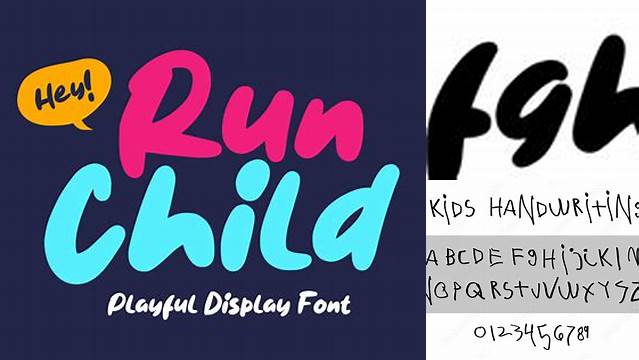
Run Child Font: Free Downloads & Playful Designs
Hey guys! Are you on the hunt for that perfect font to add a playful touch to your next project? Look no further! In this article, we're diving deep into the world of "Run Child" fonts, exploring what makes them so special and, most importantly, where you can snag them for free. Whether you're a seasoned designer or just starting out, finding the right font can make all the difference. So, let's jump right in and explore the exciting world of Run Child fonts and how they can elevate your creative endeavors. Choosing the right font is crucial for any design project, as it sets the tone and conveys the message effectively. A well-chosen font can enhance readability, evoke emotions, and create a lasting impression on the audience. Run Child fonts, with their unique and playful characteristics, are particularly suitable for projects that require a touch of whimsy and creativity. These fonts often feature rounded edges, handwritten styles, or quirky letterforms, making them ideal for children's books, educational materials, and other lighthearted designs. The versatility of Run Child fonts allows designers to explore various creative avenues, from designing logos and branding materials to creating engaging social media graphics and captivating website layouts. With their distinctive charm, Run Child fonts can add a personal touch to any project, making it stand out and capture the attention of the target audience. So, whether you're designing a birthday invitation, a children's book cover, or a website for a daycare center, Run Child fonts can be a valuable asset in your design toolkit. Run Child fonts are not just about aesthetics; they also play a crucial role in enhancing the user experience. By selecting fonts that are easy to read and visually appealing, designers can ensure that their message is effectively communicated. This is particularly important for projects targeted at children, where readability and engagement are paramount. Run Child fonts often come in various styles and weights, allowing designers to choose the most appropriate option for different applications. For example, a bold and playful font may be suitable for headlines and titles, while a more legible and understated font may be preferred for body text. By carefully considering the font's characteristics and its impact on the overall design, designers can create visually compelling and user-friendly projects that resonate with their audience.
What Makes Run Child Fonts Special?
Let's talk about what makes Run Child fonts so darn unique. These fonts often feature playful, whimsical designs that are perfect for projects targeting children or anyone looking for a lighthearted touch. Think rounded edges, cute serifs, and maybe even some fun, hand-drawn elements. It's this unique blend of creativity and readability that makes them a popular choice for a wide range of applications. The appeal of Run Child fonts lies in their ability to evoke a sense of joy and innocence, making them ideal for projects aimed at younger audiences. Whether you're designing a children's book, creating educational materials, or developing a website for a daycare center, these fonts can add a playful touch that resonates with children and parents alike. The versatility of Run Child fonts extends beyond their aesthetic appeal. Many of these fonts are designed with readability in mind, ensuring that the text remains clear and legible even at smaller sizes. This is particularly important for children's materials, where ease of reading is crucial for comprehension and engagement. Additionally, Run Child fonts often come in various styles and weights, allowing designers to create visual hierarchy and emphasize key information. This flexibility makes them suitable for a wide range of design applications, from headlines and titles to body text and captions. In addition to their playful designs and readability, Run Child fonts are also prized for their ability to convey personality and emotion. The unique letterforms and quirky details of these fonts can add a touch of character to any project, making it stand out from the crowd. Whether you're aiming for a whimsical, playful feel or a more gentle, nurturing tone, Run Child fonts can help you achieve your desired aesthetic. This makes them a valuable tool for designers looking to create memorable and impactful designs that connect with their audience on an emotional level. Furthermore, the hand-drawn and organic feel of many Run Child fonts can add a personal touch to your projects, making them feel more authentic and relatable. This is particularly important in today's digital world, where consumers are increasingly drawn to brands and designs that feel genuine and human. By incorporating Run Child fonts into your work, you can create a sense of warmth and connection that resonates with your audience and helps you build a stronger brand identity.
Key Characteristics of Run Child Fonts
To really understand what Run Child fonts bring to the table, let's break down their key characteristics. You'll often find these fonts sporting:
- Rounded Edges: Soft, curved lines that give a friendly, approachable vibe.
- Playful Serifs: Serifs are the little strokes at the end of letters, and in Run Child fonts, they're often quirky and fun.
- Hand-Drawn Elements: Some fonts mimic the look of handwriting, adding a personal touch.
- Whimsical Shapes: Expect unique letterforms that stray from the traditional, making them eye-catching.
These characteristics combine to create fonts that are not only visually appealing but also highly functional for projects aimed at children. The rounded edges, for instance, make the letters appear softer and less intimidating, which can be especially beneficial for young readers who are still learning to decode text. The playful serifs add a touch of whimsy and character, making the text more engaging and memorable. The hand-drawn elements give the fonts a personal and authentic feel, as if they were crafted by a real person rather than a machine. And the whimsical shapes add a unique visual flair that sets these fonts apart from more traditional typefaces. Furthermore, the combination of these characteristics makes Run Child fonts incredibly versatile. They can be used for a wide range of projects, from educational materials and children's books to birthday invitations and party decorations. Their playful and approachable nature makes them ideal for capturing the attention of children, while their readability ensures that the text remains clear and easy to understand. The adaptability of Run Child fonts extends beyond their target audience. They can also be used effectively in branding materials for businesses that cater to families or children, such as daycare centers, toy stores, and family-friendly restaurants. By incorporating these fonts into their logo, website, and marketing materials, businesses can create a visual identity that is both playful and professional. This can help them attract their target customers and build trust and recognition within their community. Moreover, the unique and memorable nature of Run Child fonts can help businesses stand out from the competition, making them a valuable asset in the crowded marketplace.
- Check the License: Always, always check the font license. Make sure it allows for your intended use (personal or commercial).
- Download from Reputable Sites: Stick to well-known font repositories to avoid malware and other nasty surprises.
- Organize Your Fonts: Create a system for organizing your fonts so you can easily find them later.
- Test the Font: Before using a font in a big project, test it out in different sizes and contexts to make sure it looks good.
Following these simple tips can save you a lot of headaches down the road. When you download a font, you're essentially bringing a new tool into your creative arsenal. However, like any tool, it's important to use it responsibly and effectively. Understanding the licensing terms is crucial, as it determines how you can legally use the font. If you're using a font for commercial purposes, such as in a logo or a website design, you need to ensure that the license allows for commercial use. Some fonts may have restrictions on how they can be used, such as limitations on the number of projects or the size of the audience. By carefully reviewing the license agreement, you can avoid any legal issues and ensure that you're using the font within the bounds of the law. Downloading fonts from reputable sources is another important step in protecting your computer and your data. There are many websites that offer free fonts, but not all of them are created equal. Some sites may distribute fonts that are infected with malware or that infringe on copyright laws. To minimize your risk, stick to well-known font repositories that have a reputation for providing safe and legal fonts. These sites typically screen fonts before making them available for download, reducing the likelihood of encountering malicious software or intellectual property violations. Organizing your fonts is a practical way to streamline your workflow and prevent your font library from becoming a chaotic mess. As you download more and more fonts, it can become difficult to keep track of them and find the ones you need. By creating a system for organizing your fonts, you can quickly locate the right typeface for your project and avoid wasting time searching through endless lists. Consider using folders or tags to categorize your fonts by style, type, or project. You can also use font management software to help you organize and activate your fonts more efficiently. Testing the font before using it in a large project is a smart way to ensure that it meets your needs and expectations. Fonts can look different in different contexts, so it's important to see how they perform in your specific design. Try using the font in various sizes and styles, and experiment with different letter combinations and spacing. This will help you identify any potential issues, such as kerning problems or readability concerns, before you invest too much time in the design.
Popular Run Child Fonts to Try
Need some inspiration? Here are a few popular Run Child fonts that are worth checking out:
- Bubblegum Sans: A fun, rounded font with a playful vibe.
- KG Primary Penmanship: Designed to mimic the look of handwriting, perfect for educational materials.
- Cheeky Rabbit: A cute and quirky font with irregular letterforms.
- Hey Agatha: A whimsical font with a hand-lettered feel.
These fonts represent just a small sampling of the many Run Child fonts available. Exploring different options and experimenting with various styles is essential for finding the perfect typeface for your project. Each font has its unique personality and characteristics, so taking the time to browse through different collections and try out various combinations can lead to exciting discoveries. When selecting a Run Child font, consider the specific message you want to convey and the overall tone of your design. A font with rounded edges and soft curves may be ideal for projects that require a gentle and approachable feel, such as children's books or daycare brochures. A font with more angular and irregular letterforms might be better suited for projects that aim to convey a sense of playfulness and creativity, such as birthday invitations or party decorations. In addition to the font's visual style, it's also important to consider its readability and legibility. A Run Child font that is difficult to read or that strains the eyes can detract from the overall design and make it less effective. Choose a font that is clear and easy to understand, even at small sizes or in complex layouts. You may also want to consider the font's versatility and adaptability. Some Run Child fonts come in multiple weights and styles, allowing you to create visual hierarchy and add emphasis to specific words or phrases. Others are designed to work well with other font families, giving you more flexibility in your design choices. By taking these factors into account, you can select a Run Child font that not only looks great but also enhances the overall message and impact of your project. Remember that the best font is one that complements your design and helps you achieve your desired goals.
So there you have it, guys! A comprehensive guide to finding and using Run Child fonts for free. These playful fonts can add a touch of magic to your designs, making them perfect for a wide range of projects. Just remember to check those licenses and have fun experimenting! The world of typography is vast and diverse, offering a plethora of options to suit every taste and project requirement. Run Child fonts, with their unique charm and playful characteristics, are just one facet of this fascinating world. By exploring different font styles, experimenting with various combinations, and learning about the principles of typography, you can elevate your designs and create visually compelling and impactful communications. In addition to the resources and tips mentioned in this article, there are many other ways to enhance your understanding of typography. Online tutorials, design blogs, and typography books can provide valuable insights into font selection, pairing, and usage. Attending design workshops or taking online courses can also help you develop your skills and refine your eye for typography. Remember that typography is not just about selecting pretty fonts; it's about using type effectively to communicate your message and create a visual hierarchy that guides the reader's eye. By paying attention to details such as font size, line spacing, and kerning, you can improve the readability and overall impact of your designs. Moreover, typography is an evolving field, with new fonts and techniques emerging constantly. Staying up-to-date with the latest trends and developments can help you keep your designs fresh and relevant. Subscribe to design newsletters, follow typography experts on social media, and visit font foundries regularly to discover new and exciting typefaces. In conclusion, the journey of exploring typography is a continuous process of learning and experimentation. By embracing this journey and investing in your knowledge and skills, you can unlock the power of type and create designs that are both visually appealing and highly effective. So go forth, explore the world of Run Child fonts, and let your creativity soar!